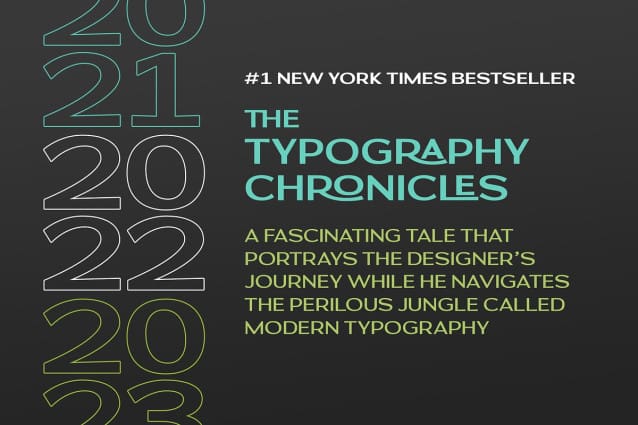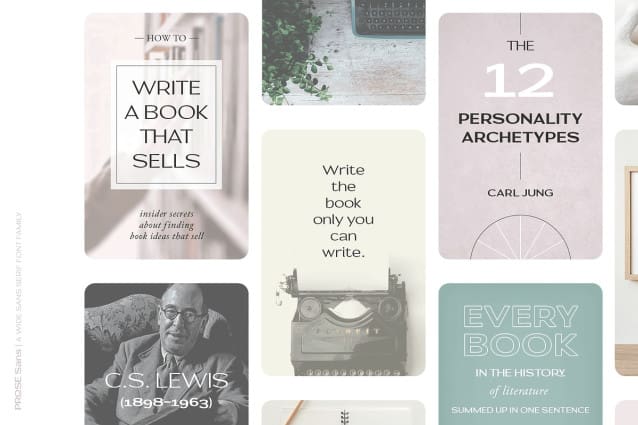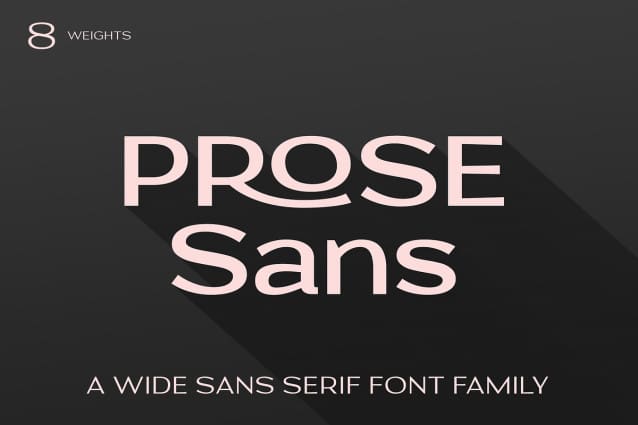
Prose Sans Font
Prose Sans Font, is a wide sans serif font family that comes in 8 weights. With its slightly tilted axis and relatively high contrast strokes, it is both elegant and strong. The standard and discretionary ligatures help achieve a more tailored look, excellent for branding, logo design, poster design etc.